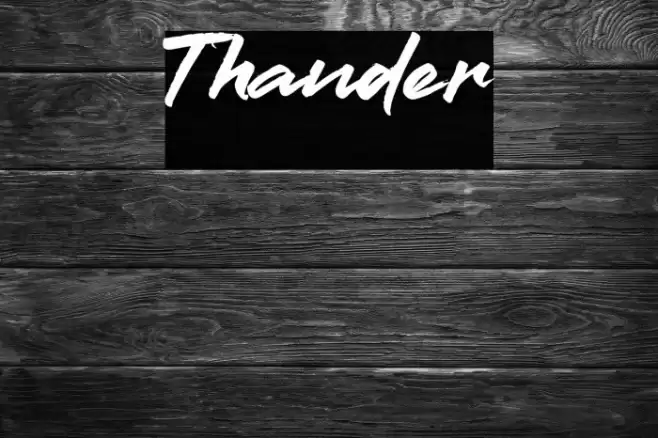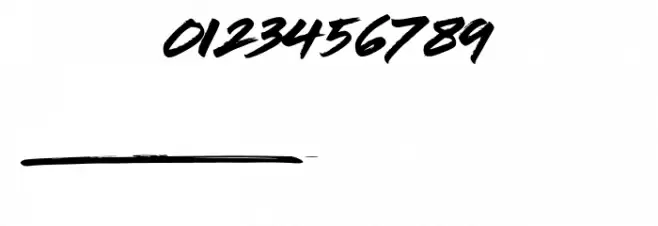
Thander Font
Thander Description
This font features a bold, dynamic script style that exudes energy and movement. The characters are designed with a brush-like texture, giving them a hand-drawn appearance. The uppercase letters are particularly striking, with sharp angles and a sense of urgency. The lowercase letters maintain a consistent flow, complementing the uppercase with their fluidity. Numbers and special characters are crafted with the same attention to detail, ensuring a cohesive look across all elements. The overall impression is one of boldness and expressiveness, making it ideal for projects that require a strong visual impact.
A bold, energetic script font with a brush-like texture from Uncategorized fonts.